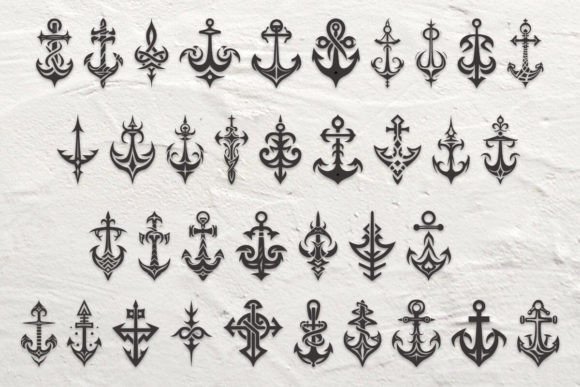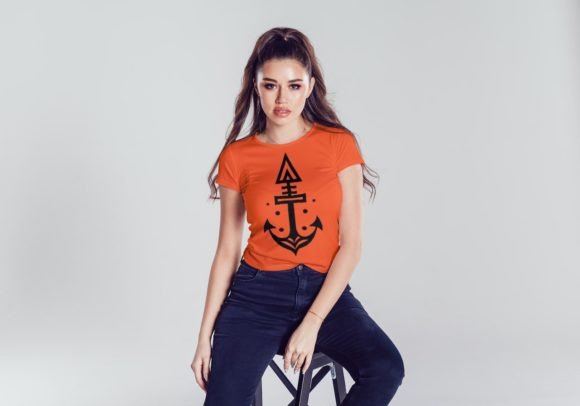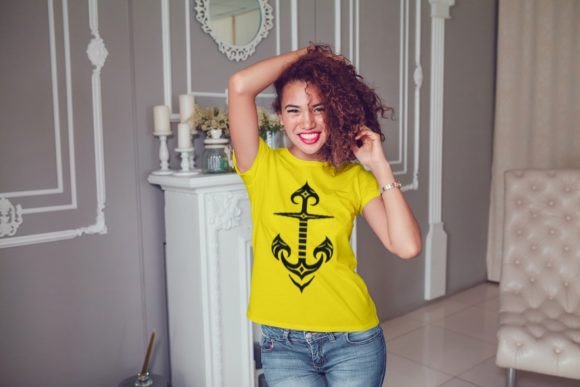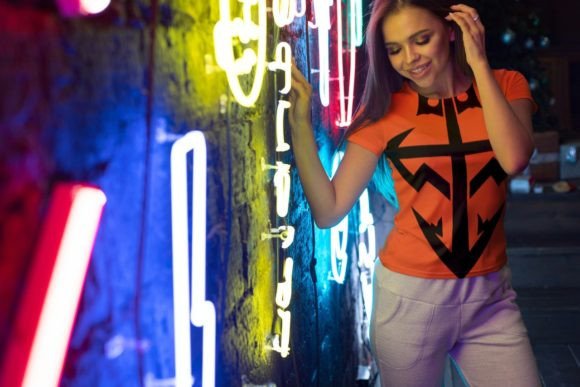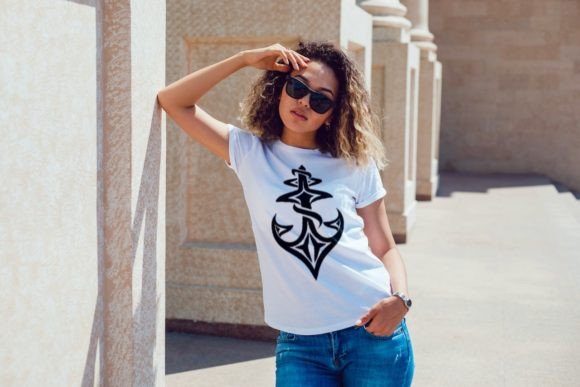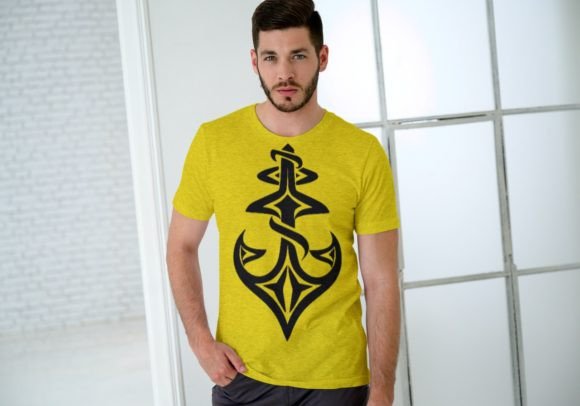
Discover the Magic of Anchor Wonders Font: Elevate Your Designs with Nautical Charm
I’ll never forget the time I was working on a nautical-themed invitation for a friend’s sailing birthday party. I had all the design elements ready – the colors, the layout, the imagery – but something was missing. That’s when I stumbled upon the perfect solution: Anchor Wonders Font, a stunning nautical dingbat font that added a touch of maritime magic to my design. In this article, I’ll share my experience with Anchor Wonders Font, its features, and how to make the most of it in your designs.
An Honest Review of Anchor Wonders Font
- ✨ Versatility: Anchor Wonders Font is perfect for various design projects, from invitations and logos to posters and more.
- ✅ Elegant Design: The font features visually appealing symbols that add a touch of sophistication to any design.
- 📚 OpenType Features: Anchor Wonders Font comes with a range of OpenType features, including glyphs and stylistic alternates, that allow for endless creativity.
⚠️ While Anchor Wonders Font is an amazing tool, there are a few things to keep in mind:
The Story Behind Anchor Wonders Font
Anchor Wonders Font was created by a team of designers who wanted to bring a touch of maritime magic to the world of typography. Inspired by the beauty of the ocean and the elegance of nautical symbols, they crafted a font that’s both versatile and visually appealing. Whether you’re a designer, crafter, or creative hobbyist, Anchor Wonders Font is the perfect tool to help you elevate your projects and add a touch of sophistication to your designs.
| Font Name | Anchor Wonders Font |
| Author | MOMAT THIRTYONE |
| What type of designs is Anchor Wonders Font best suited for? | Anchor Wonders Font is perfect for nautical-themed designs, including invitations, logos, posters, and more. |
With Anchor Wonders Font, you can add a touch of maritime magic to your designs and create stunning nautical-themed masterpieces with ease. Whether you’re a designer, crafter, or creative hobbyist, this versatile and visually appealing font is sure to inspire your creativity and help you stand out from the crowd.